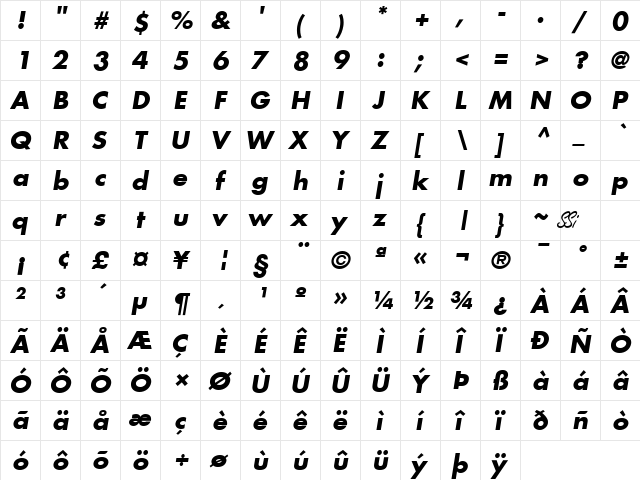
Kudos SSi Bold Italic Font Preview
Design Context for Kudos SSi Typeface
Kudos SSi takes a measured approach to typography — its balanced proportions and neutral character make it a reliable workhorse for both digital and print work. Its italic angle brings a sense of urgency and motion to the letterforms. The heavy weight commands attention and anchors typographic hierarchies.
Pro Tip: Try Kudos SSi for annotation and caption copy alongside an upright companion — the contrast in angle creates a dynamic but ordered typographic system.